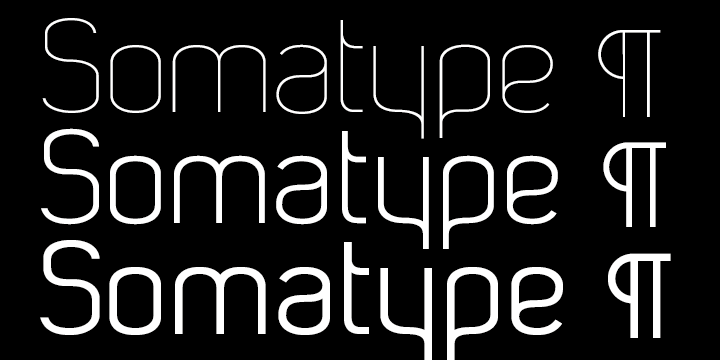
Somatype Font is perfect for medical industry branding, healthcare technology logos, fitness center marketing, wellness clinic signage, pharmaceutical packaging, anatomical illustration labels, health research presentations, sports medicine materials, and holistic therapy practice designs.
What makes Somatype Font so exciting is its scientific precision that perfectly captures the clinical accuracy and human-centered approach of modern healthcare and medical research. This professional typeface features clean, anatomical letterforms with medical-grade proportions and therapeutic balance that create an atmosphere of trust and scientific credibility. The font's distinctive character incorporates the precision of medical documentation while maintaining exceptional readability, making it ideal for healthcare brands seeking to communicate expertise, compassion, and evidence-based excellence.
Somatype Font offers a comprehensive medical family including Thin, Light, Regular, Medium, Bold, and Black weights, each available in Roman and Italic styles. Specialized OpenType features include medical symbols, pharmaceutical notation, healthcare ligatures, and anatomical characters designed specifically for medical and wellness applications requiring professional accuracy.
Whether you're developing healthcare brand identities, creating medical documentation, or designing wellness marketing campaigns, Somatype Font Free Download provides the clinical precision and therapeutic authenticity that medical industries demand. Its versatile nature makes it suitable for both detailed medical texts and clear patient communication while maintaining consistent healthcare professionalism across all medical platforms. This exceptional typeface combines medical science principles with human-centered design, ensuring your message communicates expertise and care that resonates with patients and healthcare professionals who value scientific accuracy and appreciate design that represents the highest standards of medical excellence and compassionate patient care.